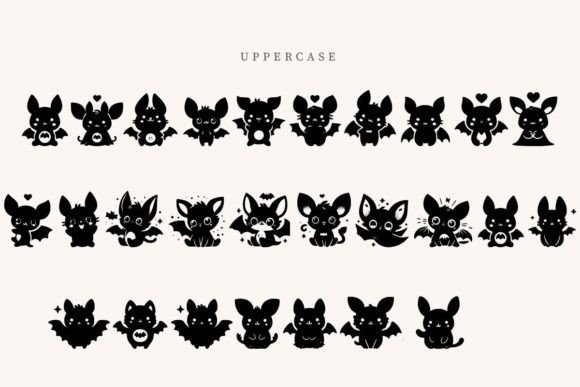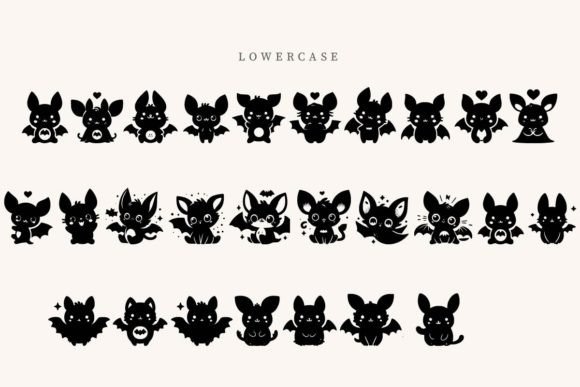
Batty Font: Add a Spooky-Cute Touch to Your Halloween Projects
Are you looking for a unique and playful font to elevate your Halloween projects? Look no further than Batty Font, a cute spooky dingbat font that’s perfect for crafters and designers alike. This adorable font features cute bat illustrations with a Halloween theme, adding a fun touch to any creative endeavor.
What is Batty Font?
Batty Font is a dingbat font that showcases a collection of cute bat illustrations, each with its own unique design and personality. The font is specifically designed with a Halloween theme, making it ideal for crafting projects, decorations, greeting cards, scrapbooking, and other creative endeavors.
Key Features of Batty Font
- Cute Bat Illustrations: The font features a range of adorable bat illustrations, each with its own unique design and personality.
- Halloween Theme: The font is specifically designed with a Halloween theme, making it perfect for seasonal projects.
- Character-Filled: The font is packed with a range of characters, including bats, ghosts, and other Halloween-themed illustrations.
Uses for Batty Font
Batty Font is a versatile font that can be used for a range of creative projects, including:
- Halloween Decorations: Use the font to create spooky-cute decorations, such as banners, garlands, and signs.
- Greeting Cards: Add a personal touch to your Halloween greeting cards with the font’s adorable bat illustrations.
- Scrapbooking: Use the font to create unique and playful scrapbook pages that showcase your Halloween memories.
- Craft Projects: The font is perfect for a range of craft projects, including DIY decorations, gift tags, and more.
Why Choose Batty Font?
There are many reasons why Batty Font is a must-have for crafters and designers, including:
- Unique Design: The font’s cute bat illustrations are unlike anything else on the market, making it a standout addition to any project.
- Optimal Print Quality: The font is designed to produce high-quality prints, making it perfect for crafters who want professional-looking results.
- Experiment with Different Sizes: The font’s illustrations look great at a range of sizes, from small and subtle to large and bold.
- Combine with Other Fonts: Try pairing Batty Font with other Halloween-themed fonts for a unique and eye-catching look.
- Use for Non-Halloween Projects: While the font is designed with Halloween in mind, it can also be used for non-seasonal projects, such as children’s illustrations or whimsical designs.
Batty Font is a must-have for crafters and designers who want to add a spooky-cute touch to their Halloween projects. With its adorable bat illustrations, Halloween theme, and OTF format, this dingbat font is perfect for a range of creative endeavors. Whether you’re making decorations, greeting cards, or scrapbook pages, Batty Font is sure to elevate your projects and make them stand out.